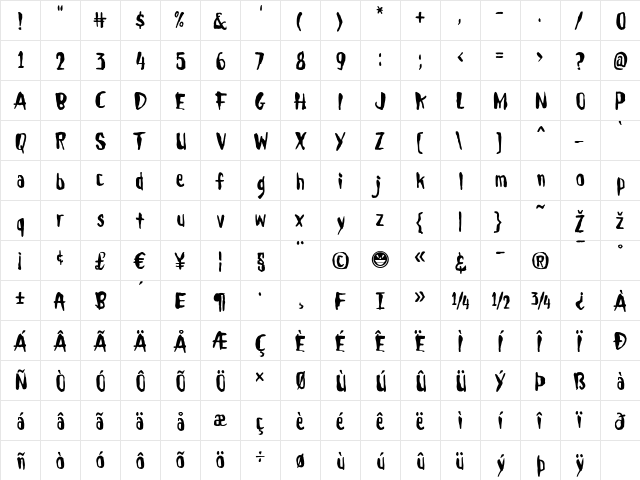
Droeming Regular
Design Context for Droeming Typeface
Droeming is a composed and adaptable typeface that performs quietly and consistently across a wide range of design contexts.
Pro Tip: Pair Droeming with a font of contrasting weight or personality to build a more expressive typographic hierarchy.